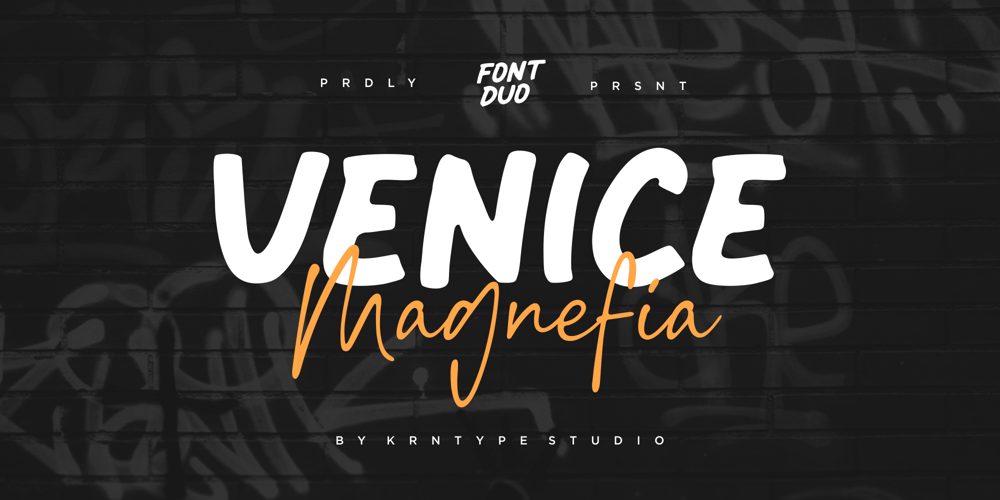
Venice Magnefia
Venice Magnefia font
Venice Magnefia Font Family was designed by Bagus Arya Kirana and published by Krntype Studio. Venice Magnefia contains 2 styles and family package options. Venice Magnefia Font Duo is a bold synergy font. The composition between thick brush and a clean hand writing is very suitable. this font created with brush marker and gel pen.Venice Magnefia font come for you to use in all your creative and boldness needs.